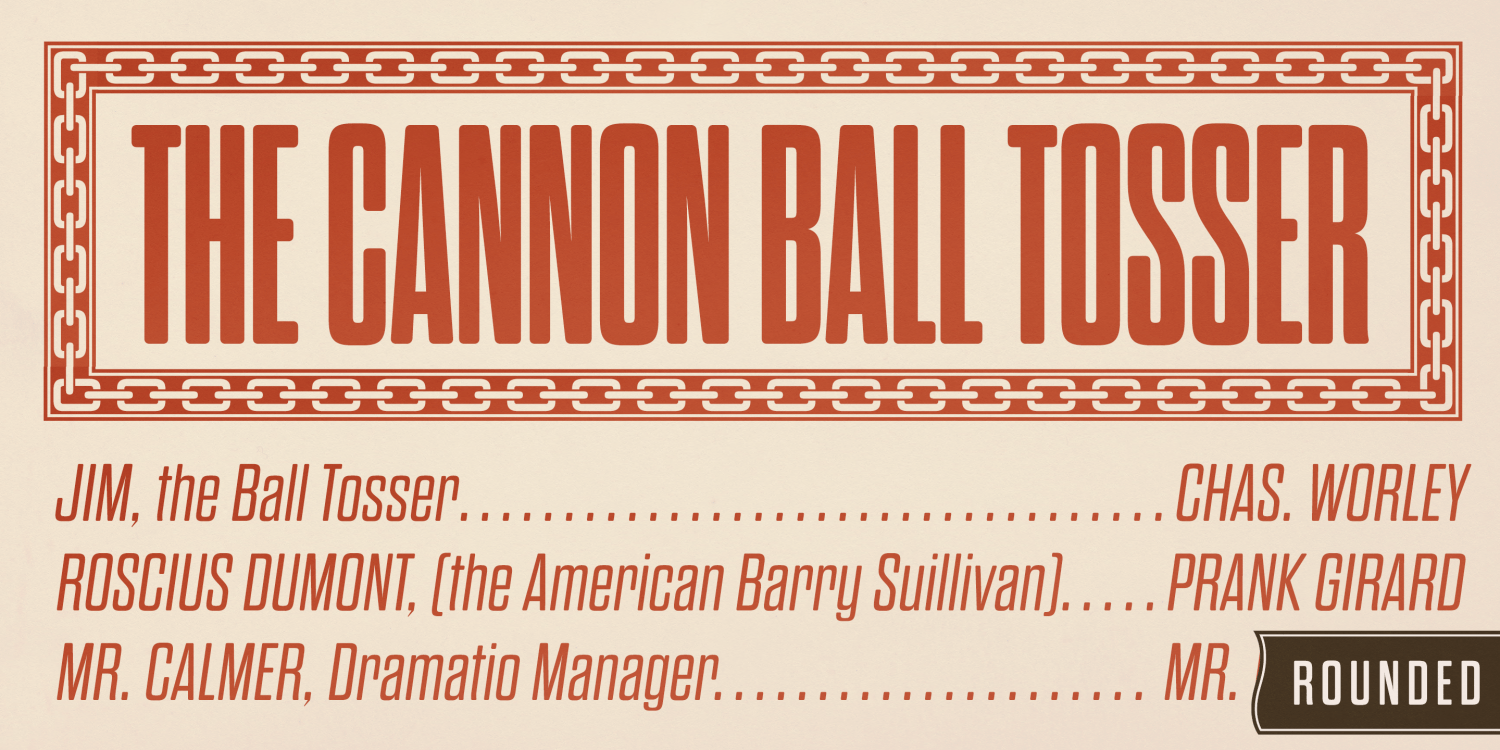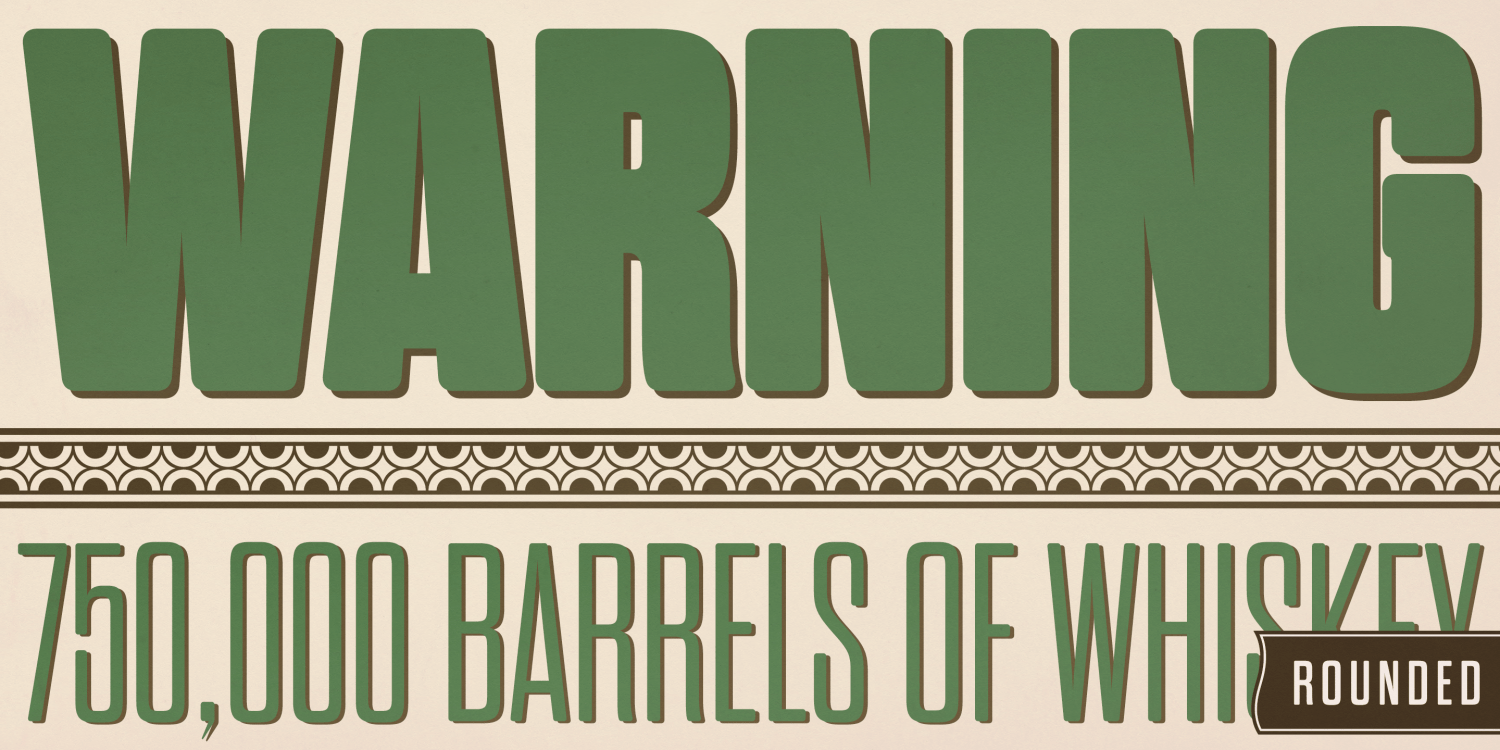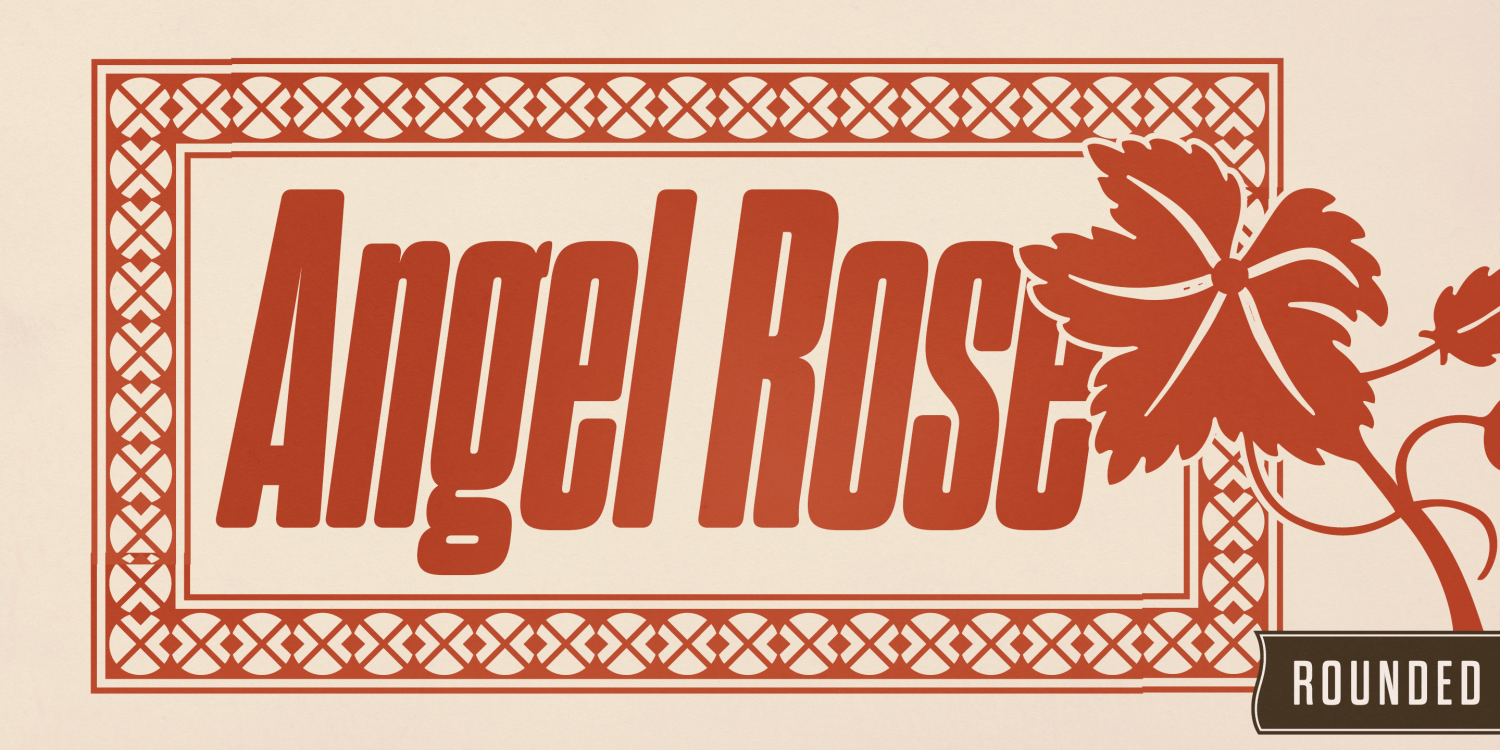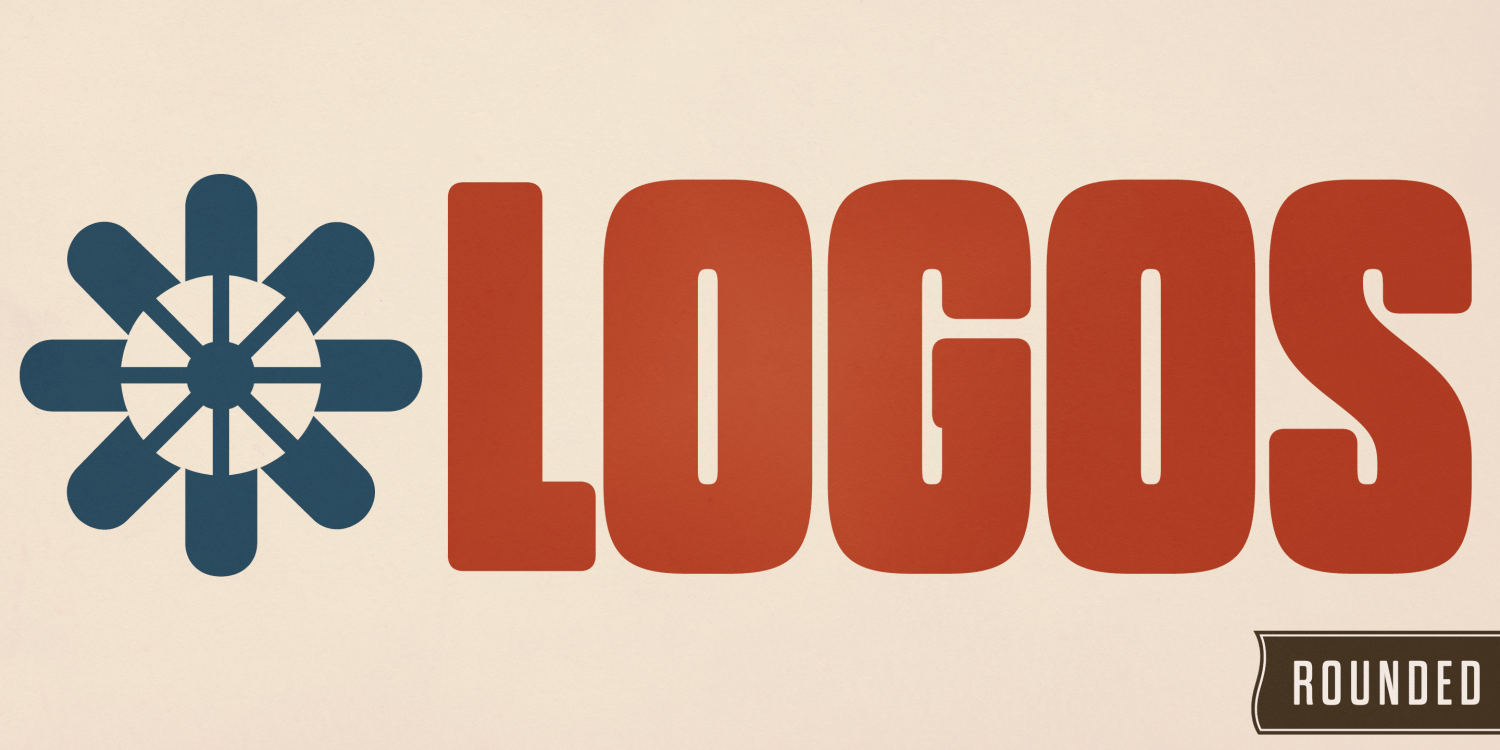
About Dharma Gothic Rounded
Dharma Gothic Rounded is an antiqued sans serif designed inspired by 1800s-style wood type. All glyphs had been designed carefully to be retro-looking of the old time and to fill all with nostalgia. There is Dharma Gothic Family that is not rounded.…